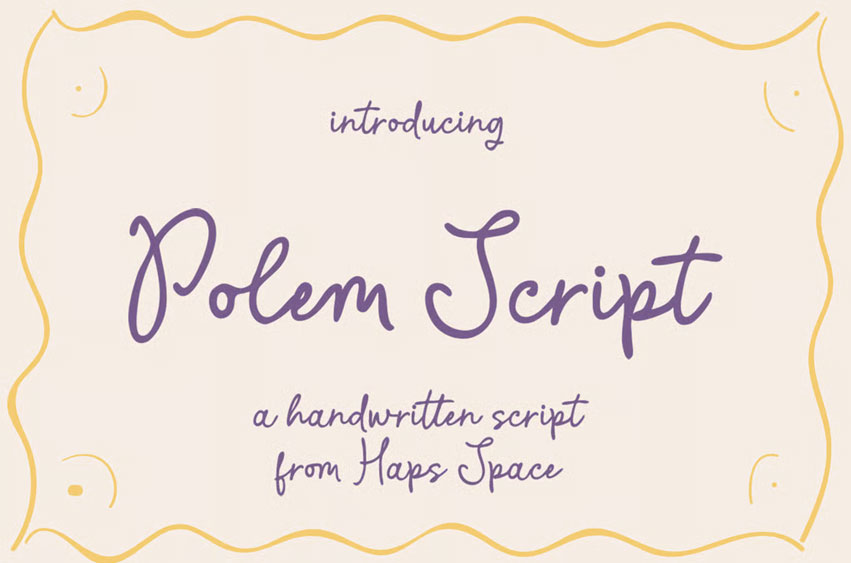
Polem Script Font
Polem Script Font is a sweet, simple, and sophisticated handwritten script font. With smooth curves and natural flow, it brings a personal, elegant touch to your design work. Perfect for branding, quotes, wedding stationery, logos, and anything that needs a soft handwritten feel.
Designed with legibility and charm in mind, Polem Script fits beautifully into both modern and classic design themes.
• Uppercase & Lowercase Letters
• Smooth and flowing letterforms
Ideal For:
• Feminine branding
• Elegant logos
• Wedding invitations & stationery
• Personal quotes & messages
• Instagram & social media graphics
• Journals, cards, and more